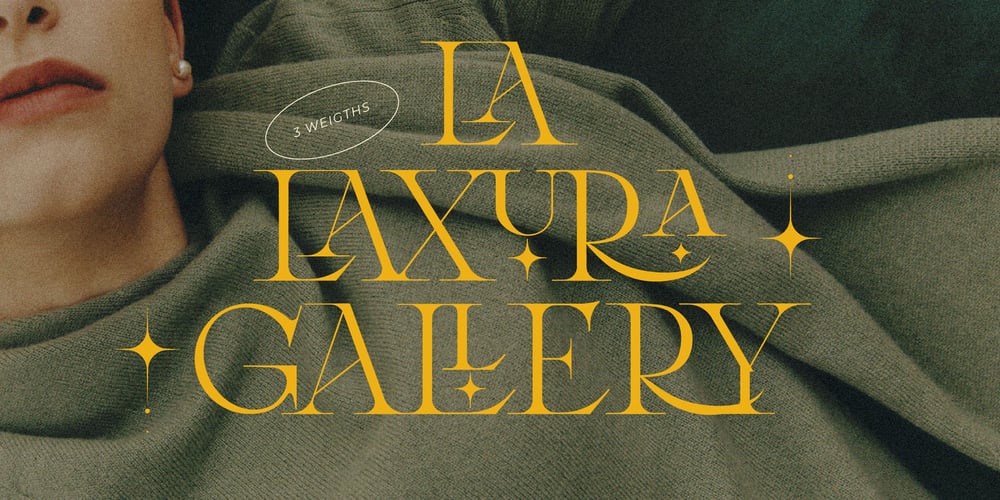
CCS Laxura Font Family was designed by Kurt Harahap and published by Creative Corner Studio. CCS Laxura contains 3 styles and family package options. CCS Laxura is a contemporary vintage serif with style based on 18th Century European aesthetics that is both elegant and unique with smooth and sharp curves and beautiful ligatures, tons of special alternative glyphs, ornament and multilingual support. It’s a very versatile font that works great in large and small sizes. Laxura is perfect for branding projects, Logo design, Clothing Branding, product packaging, magazine headers, or simply as a stylish text overlay to any background image.